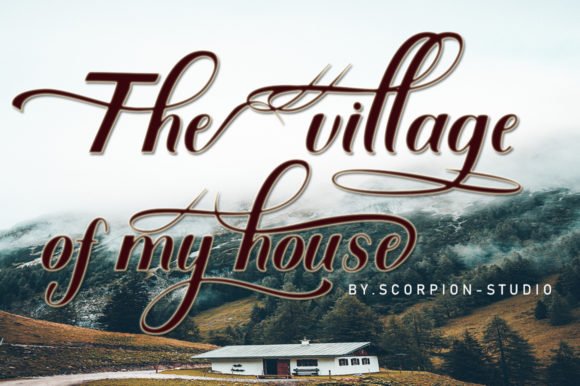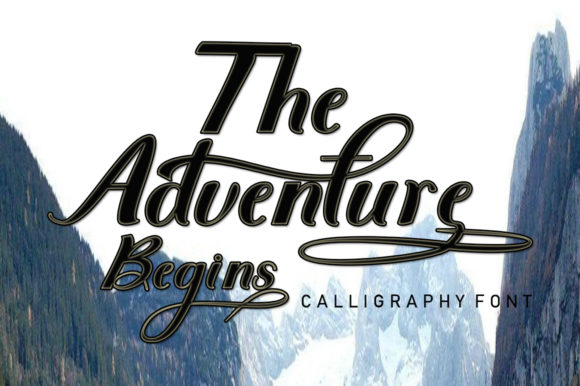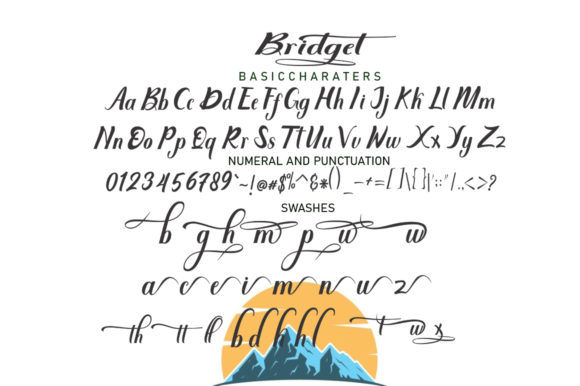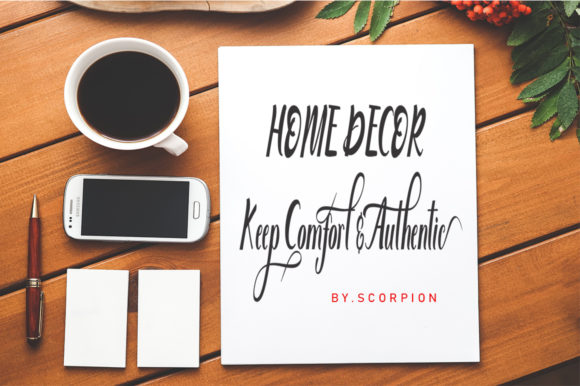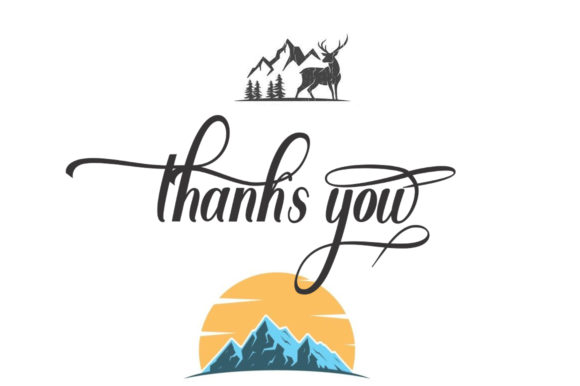
Bridget Font
About Bridget Font
Bridget is a beautiful handwritten font. It has a retro look that will brighten any craft project that requires a vintage look. This will raise various design projects to the highest level, be it brand, title, wedding design, invitations, signatures, logos, labels, and more! This font is PUA encoded which means you can access all of the cute glyphs and swashes with ease! It also features a wealth of special features including alternate glyphs and ligatures.